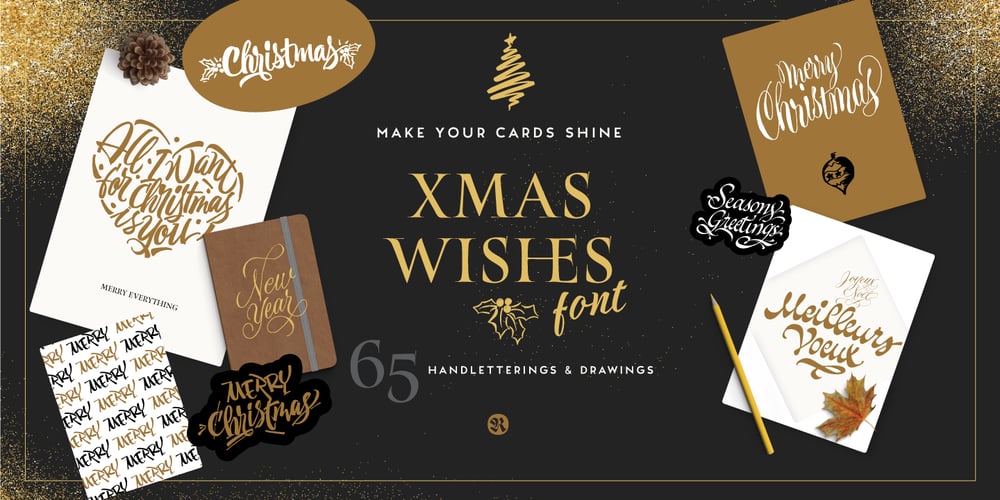
Xmas Wishes Font Family was designed by Giuseppe Salerno, Paco González and published by Resistenza. Xmas Wishes contains 1 styles and family package options. Xmas Wishes Font, a delightful collection crafted with care to infuse your holiday designs with the warm spirit of Christmas. This unique font package boasts 55 beautifully calligraphic Christmas greetings and 10 charming Christmas dingbats, each lovingly handwritten using a variety of tools including broad nib pen, pointed pen, and brush pen. The result? A rich array of styles that will elevate your festive creations to new heights.What sets Xmas Wishes Font apart is its versatility. With letterings available in English, French, Spanish, and Italian, you can spread holiday cheer across borders and languages. Whether you’re designing posters, greeting cards, wrapping paper, tags, or other seasonal goodies, this font collection is your go-to resource for adding a touch of handmade elegance to every project.But the magic doesn’t stop there. And with its 55 handlettered Xmas words and 10 hand-drawn Xmas dingbats, the possibilities for creativity are endless.Furthermore, Xmas Wishes Font isn’t just for print—it’s perfect for digital content too! Enhance your blog posts, social media graphics, and more with these festive designs. And for those who crave attention to detail, each image in the collection is packed with intricate elements that invite exploration and delight.So, this holiday season, unwrap the joy of Xmas Wishes Font and let its timeless charm transform your creations into cherished keepsakes. Whether you’re decking the halls or spreading seasonal joy online, this font collection is your secret ingredient for crafting unforgettable memories. Open the images, explore the details, and let the magic begin.